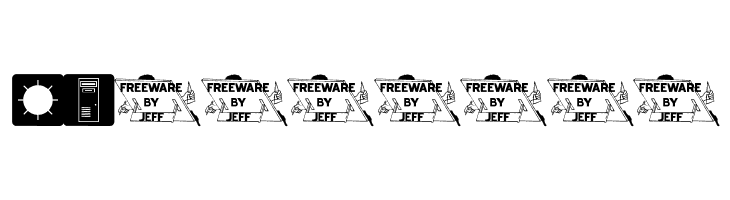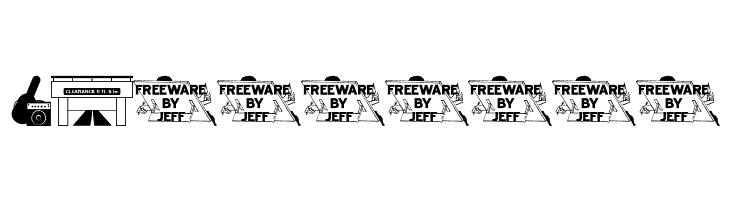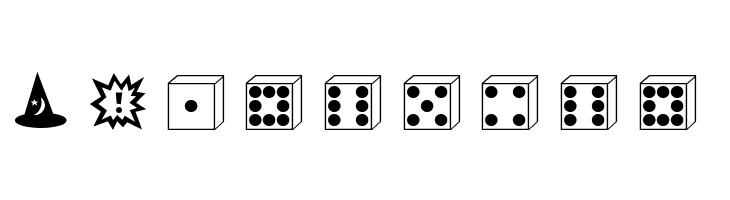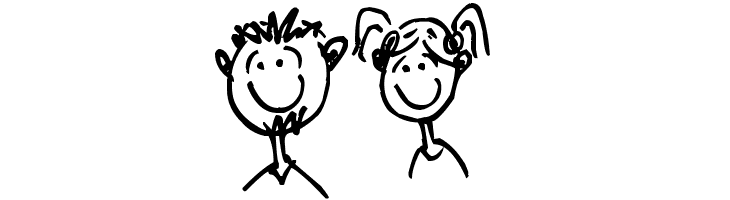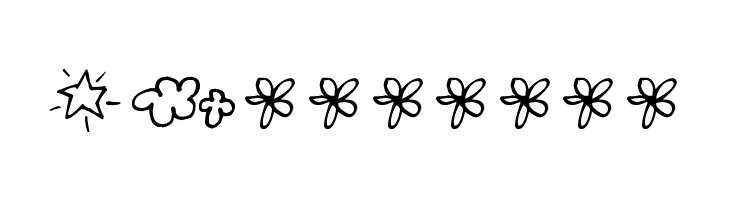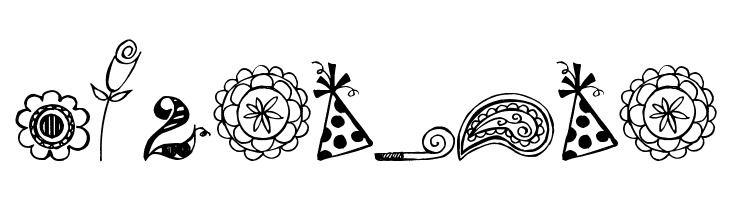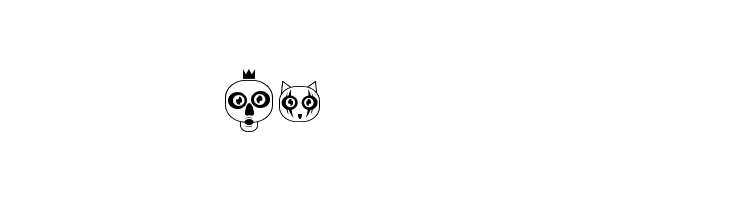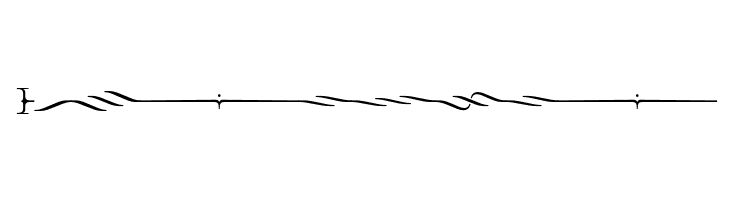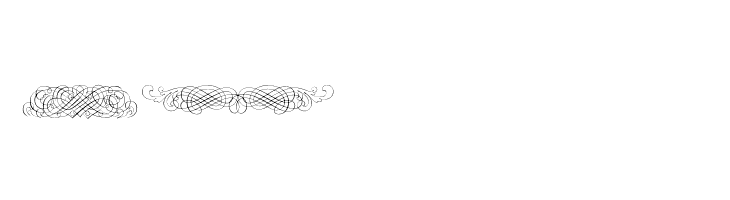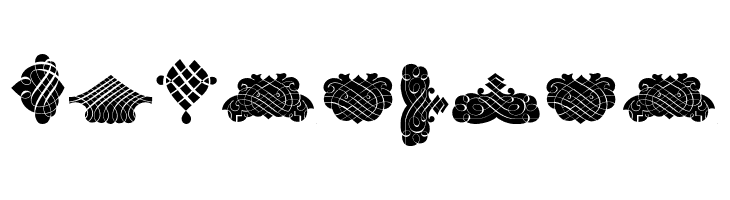
A playful set of bold, high-contrast symbols ideal for creative projects.
A collection of bold, graphic dingbat icons depicting urban and industrial elements.
A bold icon set for gaming and tabletop themes.
A playful doodle-style design with stick figures and whimsical elements.
A playful set of hand-drawn doodles with whimsical and fun designs.
A whimsical collection of hand-drawn doodles featuring flowers, paisleys, and other decorative elements.
A whimsical collection of illustrated faces with unique expressions.
An abstract, decorative design with swirling lines and geometric shapes.